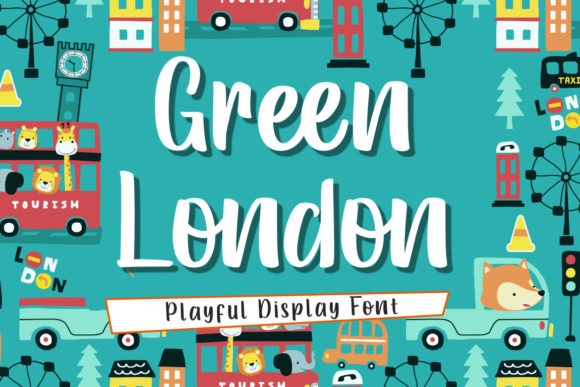
Green London Font: A Versatile Choice for Creative Expression
Green London is more than just a font—it’s a design tool that brings personality, clarity, and charm to your projects. Whether you're working on digital content, print materials, or creative presentations, this cute and playful display font offers a unique way to stand out while maintaining readability and style.
Why Green London Stands Out in a Crowded Design Space
In today's fast-paced creative world, choosing the right font can make all the difference. Green London blends whimsy with professionalism, making it an ideal choice for those who want to add a touch of character without sacrificing legibility. Its rounded, friendly curves are perfect for both casual and formal settings, allowing it to adapt seamlessly to different design needs.
This font is especially useful when you need to convey warmth and approachability. For instance, if you're designing a greeting card for a friend or family member, Green London adds a personal and heartfelt feel that can enhance the message. Similarly, in a professional context, its playful yet refined appearance can help create a brand identity that feels modern and inviting.
How Green London Enhances Communication and Creativity
One of the key strengths of Green London is its ability to support clear communication through visual appeal. When used effectively, this font can draw attention to important information and make your content more engaging. For example, in a presentation, using Green London for headings can immediately grab the audience’s attention and set a positive tone for the entire talk.
Moreover, the font’s versatility makes it a great asset for creators looking to simplify their workflow. Instead of switching between multiple fonts to achieve the desired look, you can rely on Green London to cover a wide range of design scenarios. This not only saves time but also ensures consistency across your projects.
Practical Use Cases for Green London
- Crafting: From handmade journals to DIY invitations, Green London adds a charming, hand-drawn quality that complements paper-based designs.
- Digital Design: Whether you're creating social media graphics, website headers, or email templates, this font works well in both light and dark backgrounds.
- Presentations: Its bold and eye-catching style makes it perfect for titles, callouts, and key points that need to stand out.
- Greeting Cards: The playful nature of Green London is ideal for birthdays, weddings, and other celebratory occasions.
- Branding: For small businesses or entrepreneurs, this font can help create a memorable brand identity that feels both modern and warm.
Each of these use cases highlights how Green London can be tailored to meet specific goals. Whether you're aiming to build a stronger connection with your audience or simply want to make your work more visually appealing, this font provides the flexibility to do so.
Who Benefits Most from Using Green London
Green London is particularly beneficial for professionals in creative fields such as graphic design, marketing, and education. For educators, using this font in lesson plans or classroom materials can make learning more engaging for students. Marketers can leverage its charm to create social media content that resonates with younger audiences.
Entrepreneurs and small business owners may find Green London useful for branding and packaging. It helps convey a sense of approachability and innovation, which can be crucial in standing out in competitive markets. Additionally, hobbyists and freelancers who work on personal projects will appreciate how this font adds personality and flair to their work.
Considerations and Limitations
While Green London has many advantages, it's important to consider its limitations. Because it's a display font, it may not be suitable for long blocks of text. In such cases, pairing it with a more readable body font can help maintain balance and usability.
Additionally, depending on the platform or software you're using, there may be compatibility issues. Always test the font in your intended environment to ensure it renders correctly. If you're unsure about the best font for your project, comparing Green London with other similar fonts can help you make an informed decision.
Final Thoughts on Green London
Green London is more than just a cute and playful display font—it's a versatile tool that can elevate your creative projects in meaningful ways. By combining charm with functionality, it supports clear communication, enhances creativity, and simplifies decision-making for designers, marketers, and hobbyists alike.
If you're looking for a font that can adapt to both formal and informal settings, Green London is worth considering. Whether you're crafting a greeting card, designing a presentation, or building a brand, this font has the potential to make your work more engaging and memorable.